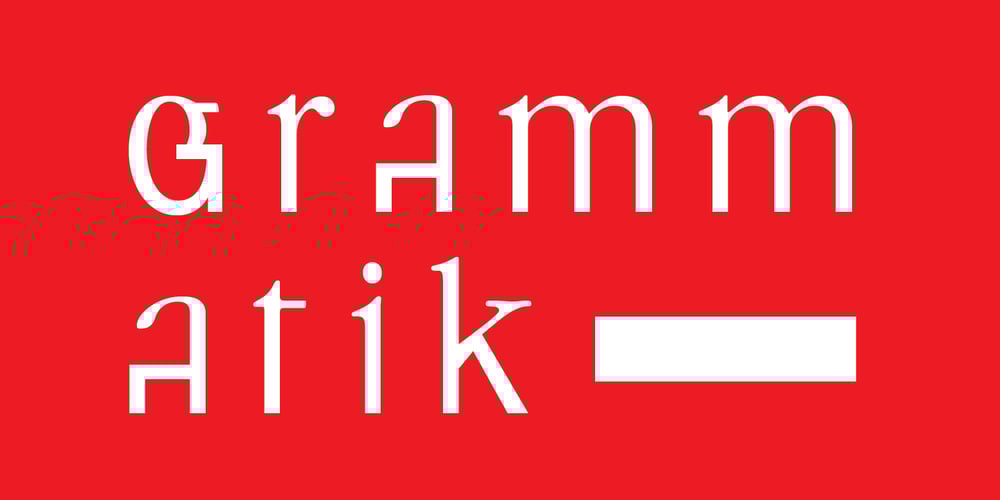
Grammatik Font Family was designed by Valery Golyzhenkov and published by Letterhead Studio-VG. Grammatik contains 1 styles and family package options. Grammatik was made in the end of 2004. This typeface is clear and simple hybrid between sans and serif styles, which was so popular late 90s. Use Grammatik as a display face for best results.